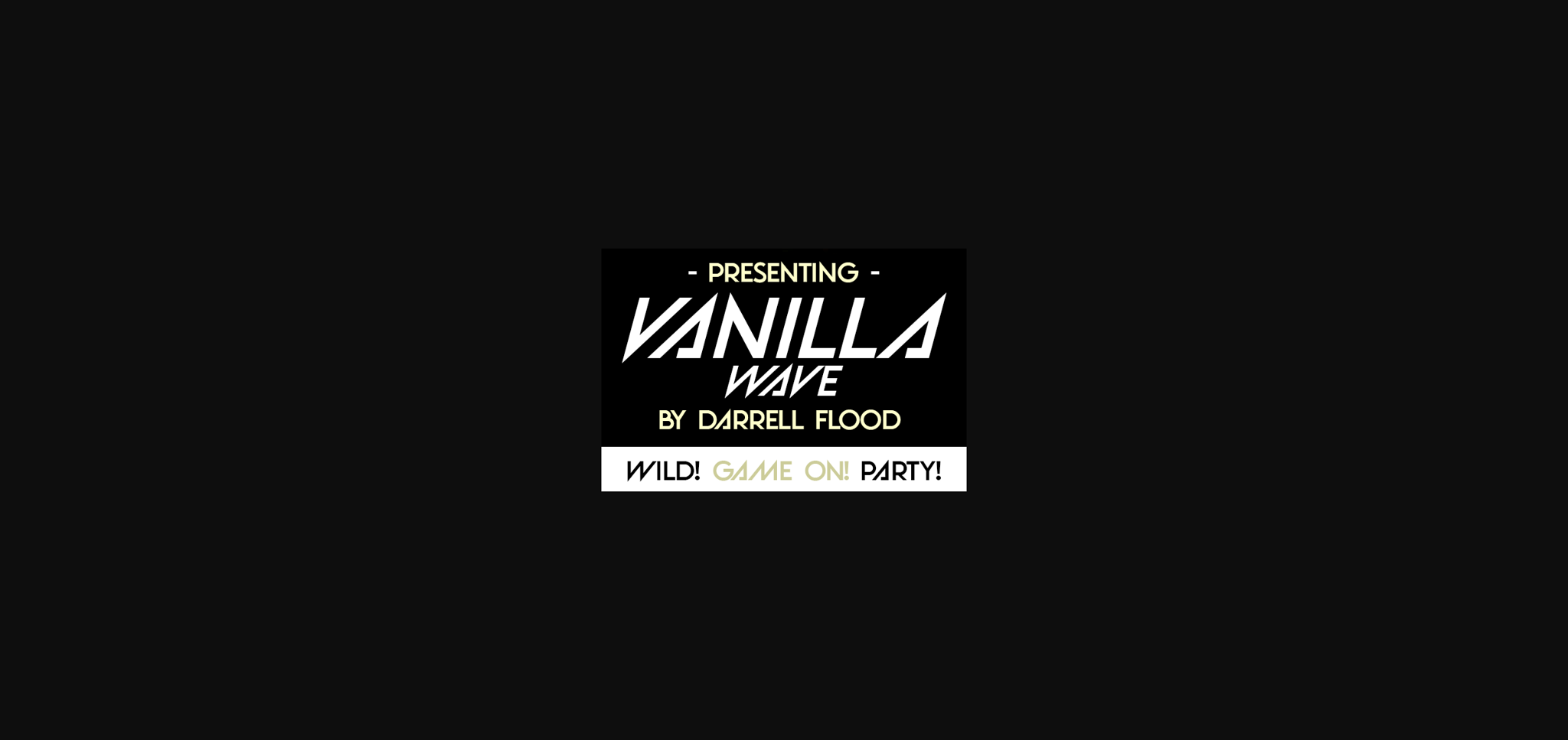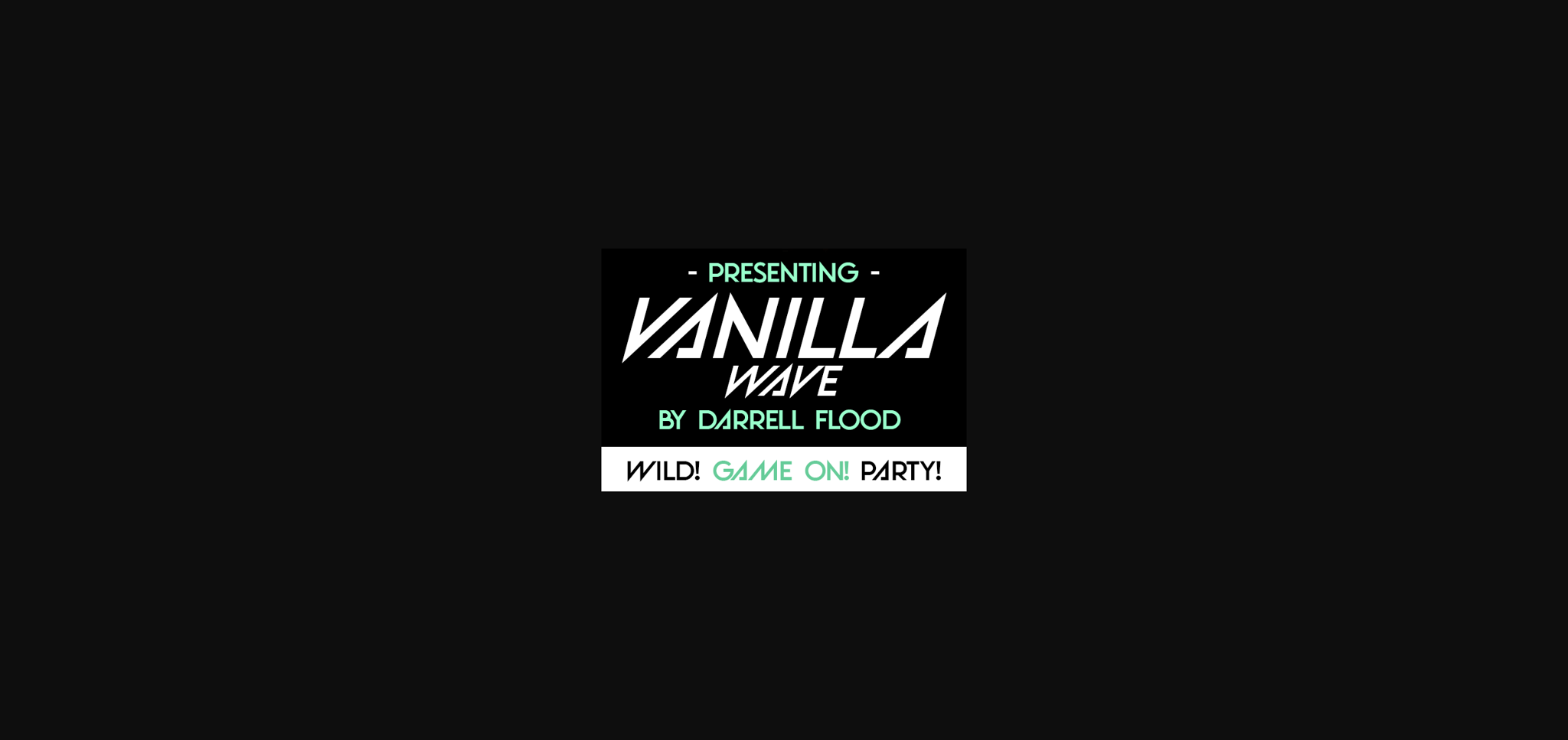
An expressive, modern sans-serif font with lots of angular momentum. Perfect for high-tech presentations, fashion themes, and anywhere an eye-catching font is required!